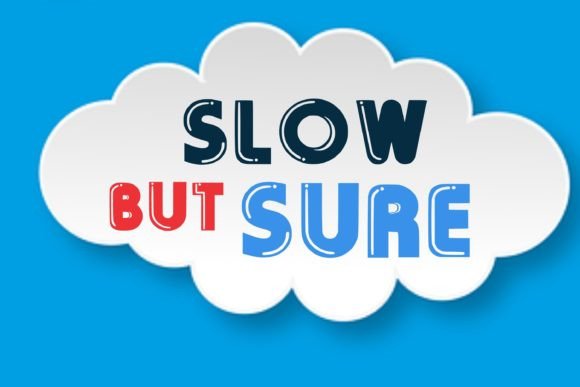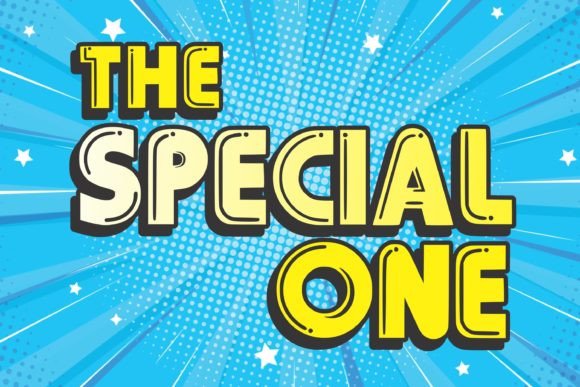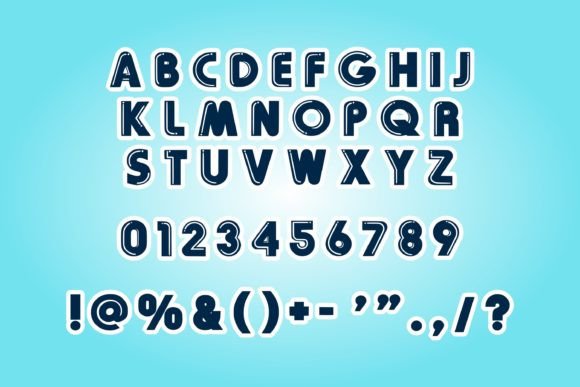
Introduction to On Time Font
As a designer, you know the rush of excitement when you stumble upon the perfect font to elevate your project. It’s that ‘aha’ moment when everything falls into place, and your creative vision starts to take shape. For those who crave a bold and playful touch, the On Time Font is here to save the day.
Imagine a font that’s not only easy on the eyes but also versatile enough to be used across various design projects. From social media graphics to children’s book covers, On Time Font is your go-to design resource that will make your work stand out. With its transparent background and high-quality design, you can be sure that your project will be noticed. And the best part? It’s available for free download, making it a valuable asset for designers who want to add a personal touch to their creative projects.
Key Features of On Time Font
- High-quality design resource ideal for creative projects, including presentations, posters, and brochures.
- Transparent background, allowing for seamless integration with any design element.
- Designed to be highly legible at various resolutions, including 300 DPI and 600 DPI, making it suitable for both print and digital use.
- Available in multiple font sizes, from 12pt to 48pt, providing flexibility for designers to create visually appealing typography.
- Perfect for designers and artists working on creative projects, offering a unique and stylish aesthetic that sets their work apart.
- Easy to use and customize, making it an excellent addition to any design resource collection.
Honest Review: On Time Font
I recently stumbled upon the On Time Font and I must say it’s been a great addition to my design resource library. As a designer, I’m always on the lookout for high-quality fonts that can elevate my creative project to the next level.
What works well about the On Time Font is its modern and clean design. The font is available for free download, which is a huge plus in my book. I’ve used it for a variety of projects and it’s always delivered a professional look. The transparent background option also gives me the flexibility to customize it to fit my design needs.
The font is also incredibly versatile and can be used for a wide range of creative projects, from logos to typography-based designs.
Here are some of the key features that I like about the On Time Font:
- Modern and clean aesthetic
- Wide range of creative project applications
However, I do have to mention a few limitations ⚠️:
- Limited character set
- No bold or italic variations
Overall, I’m really impressed with the On Time Font and would definitely recommend it to fellow designers looking for a high-quality, free design resource. It’s a great addition to any design library and has already helped me take my creative projects to the next level ✨.
Tips for Getting the Most Out of On Time Font
For a high-quality design, use On Time Font on a transparent background to create a clean and minimalist look. You can also experiment with different font sizes and styles to add visual interest to your design.
On Time Font is ideal for various creative projects, including logos, business cards, and presentations. Its high-quality design makes it a great resource for designers and non-designers alike.